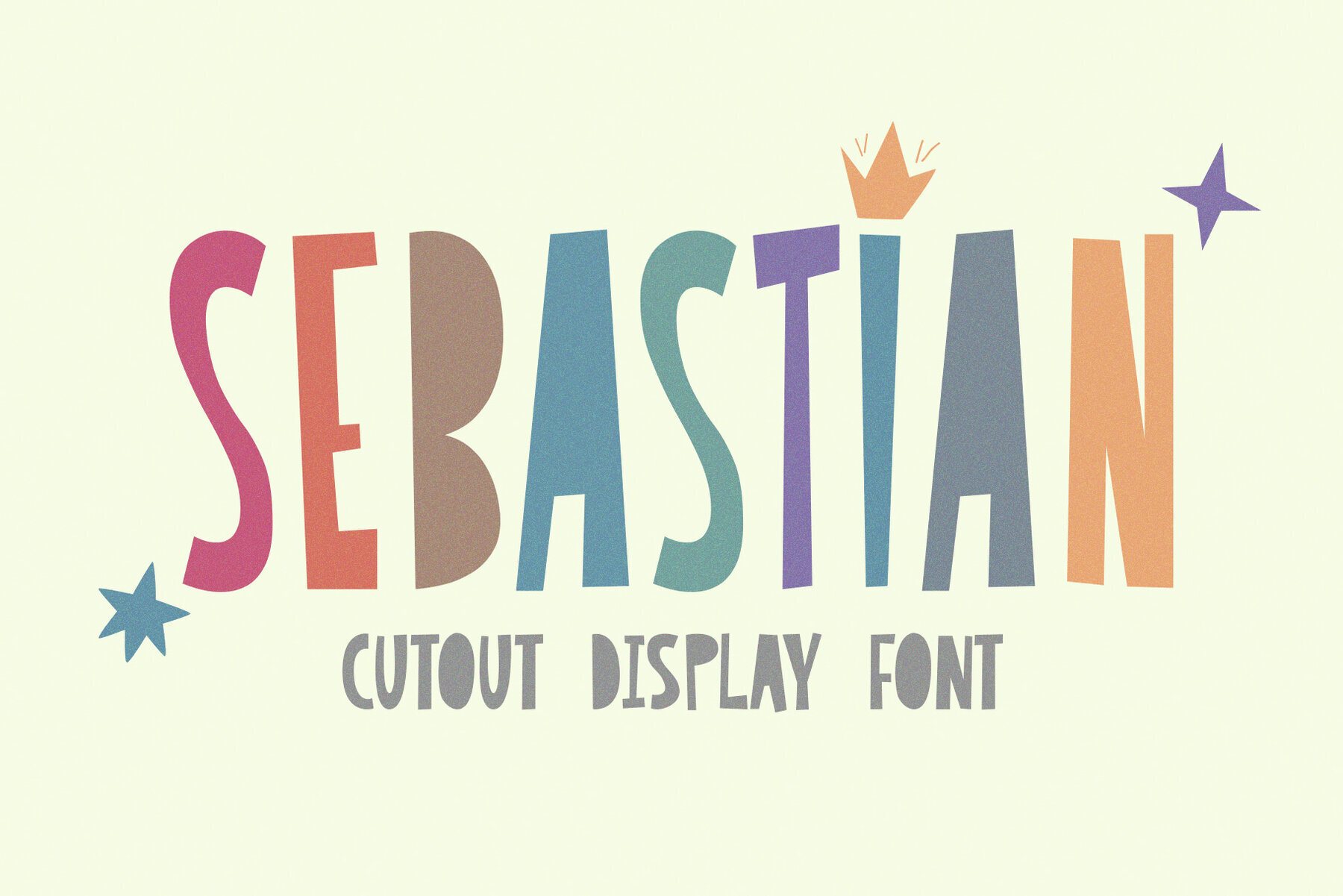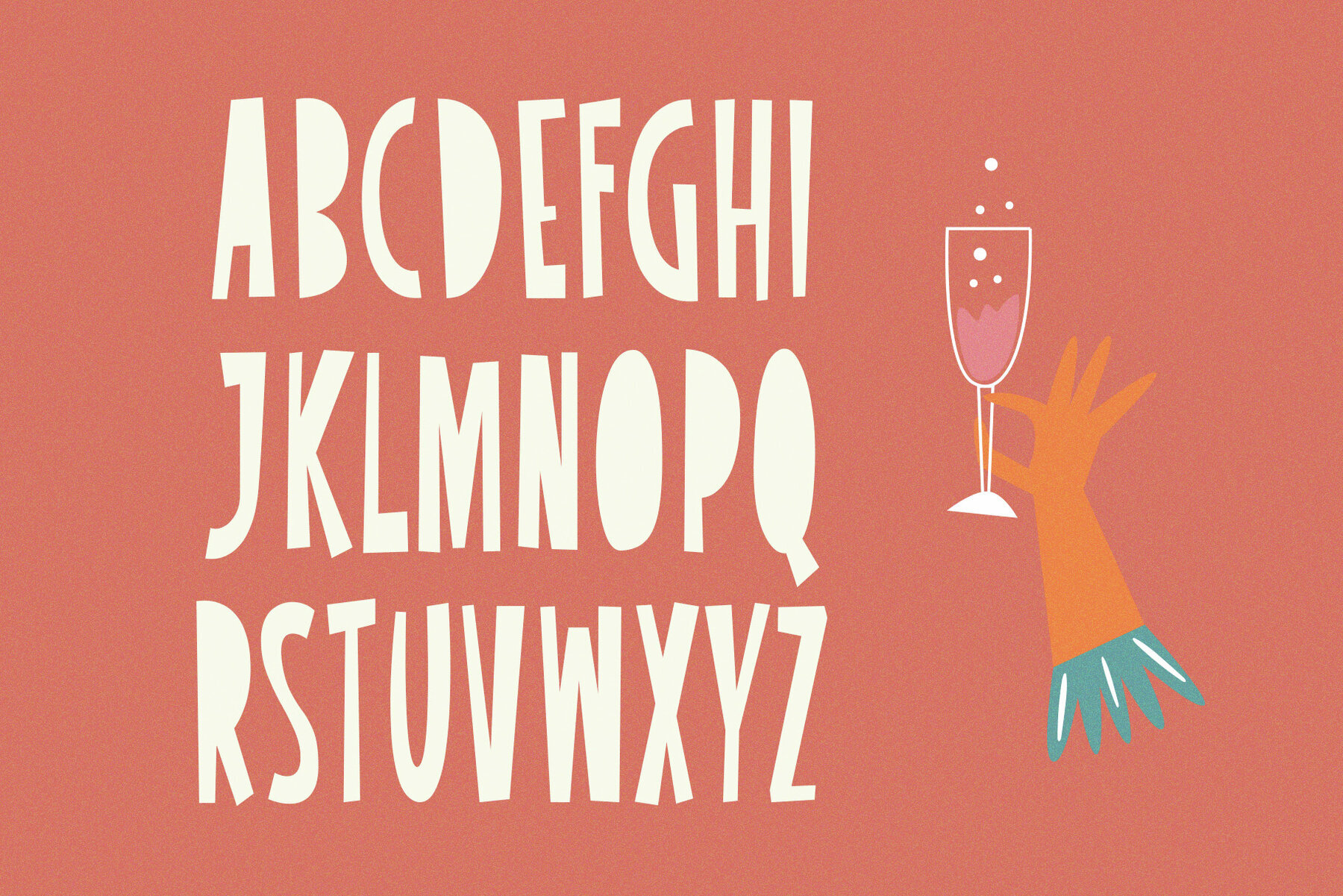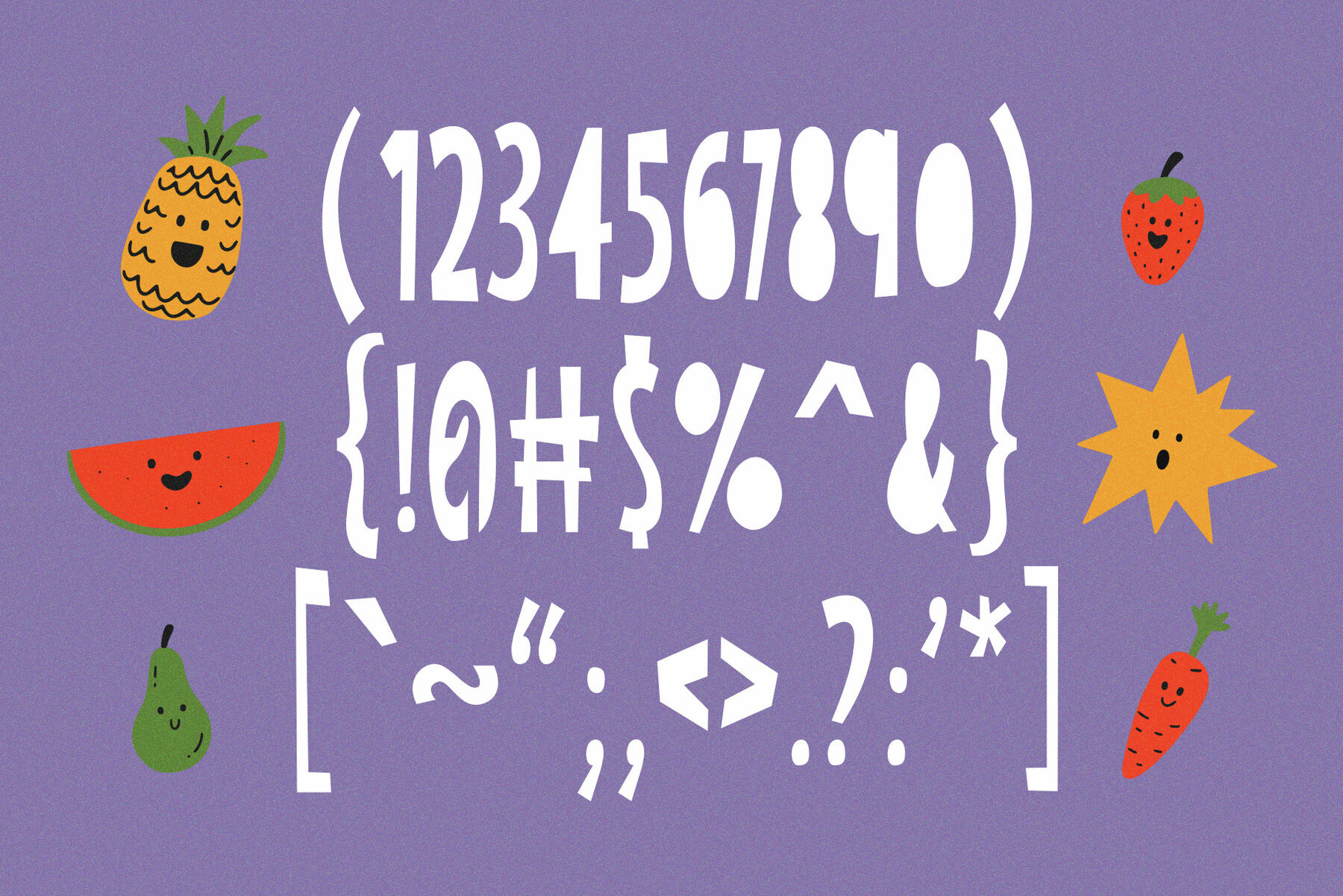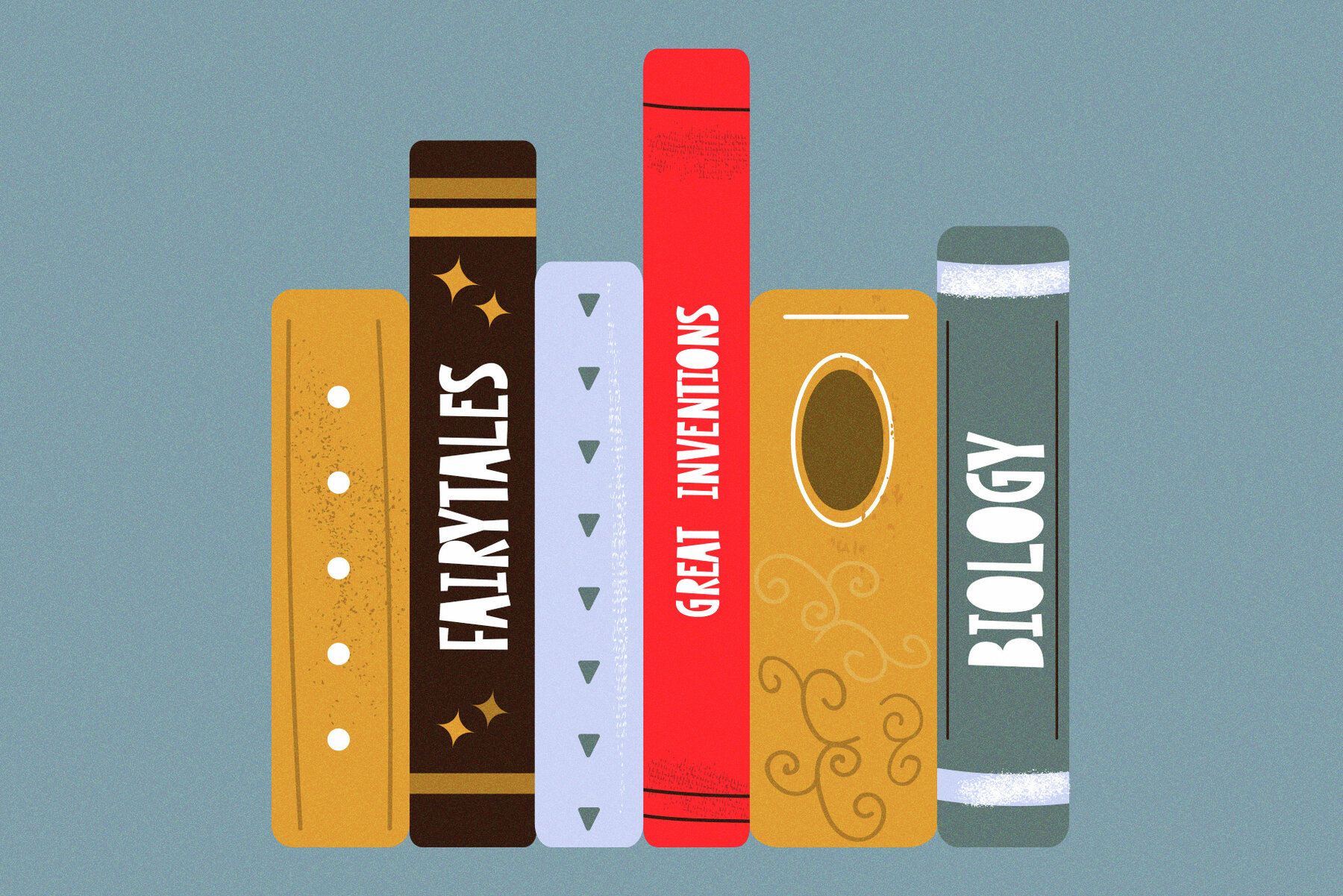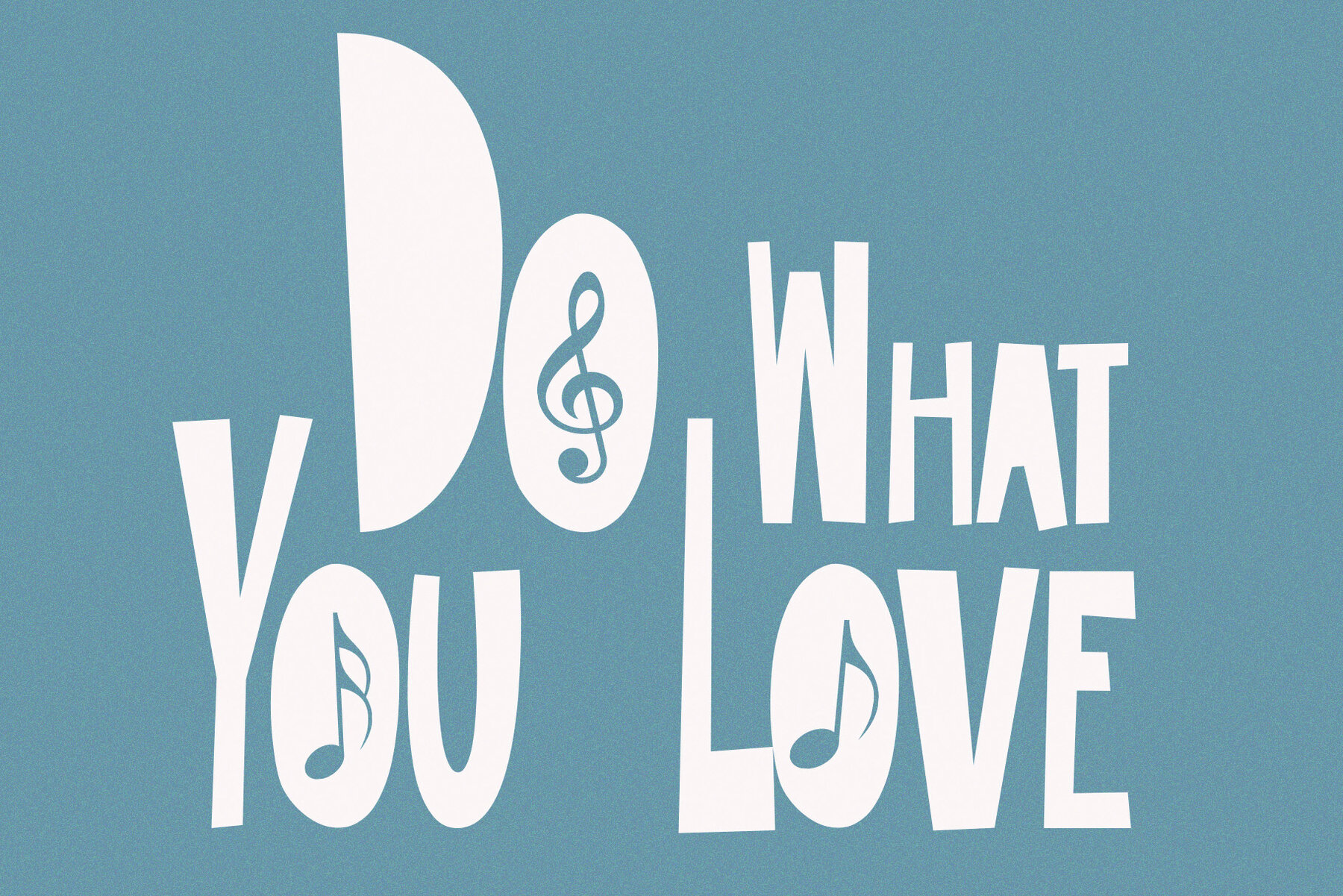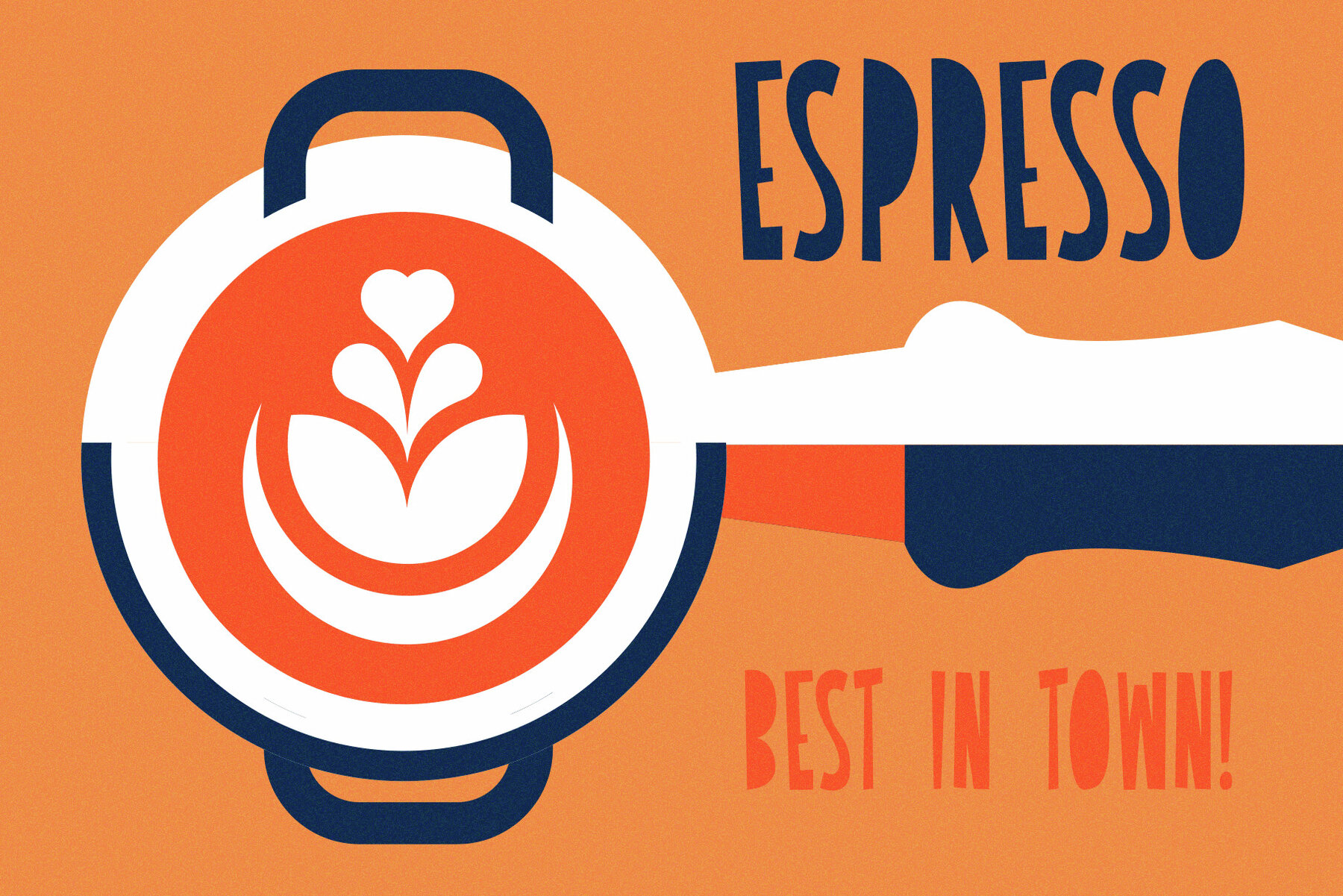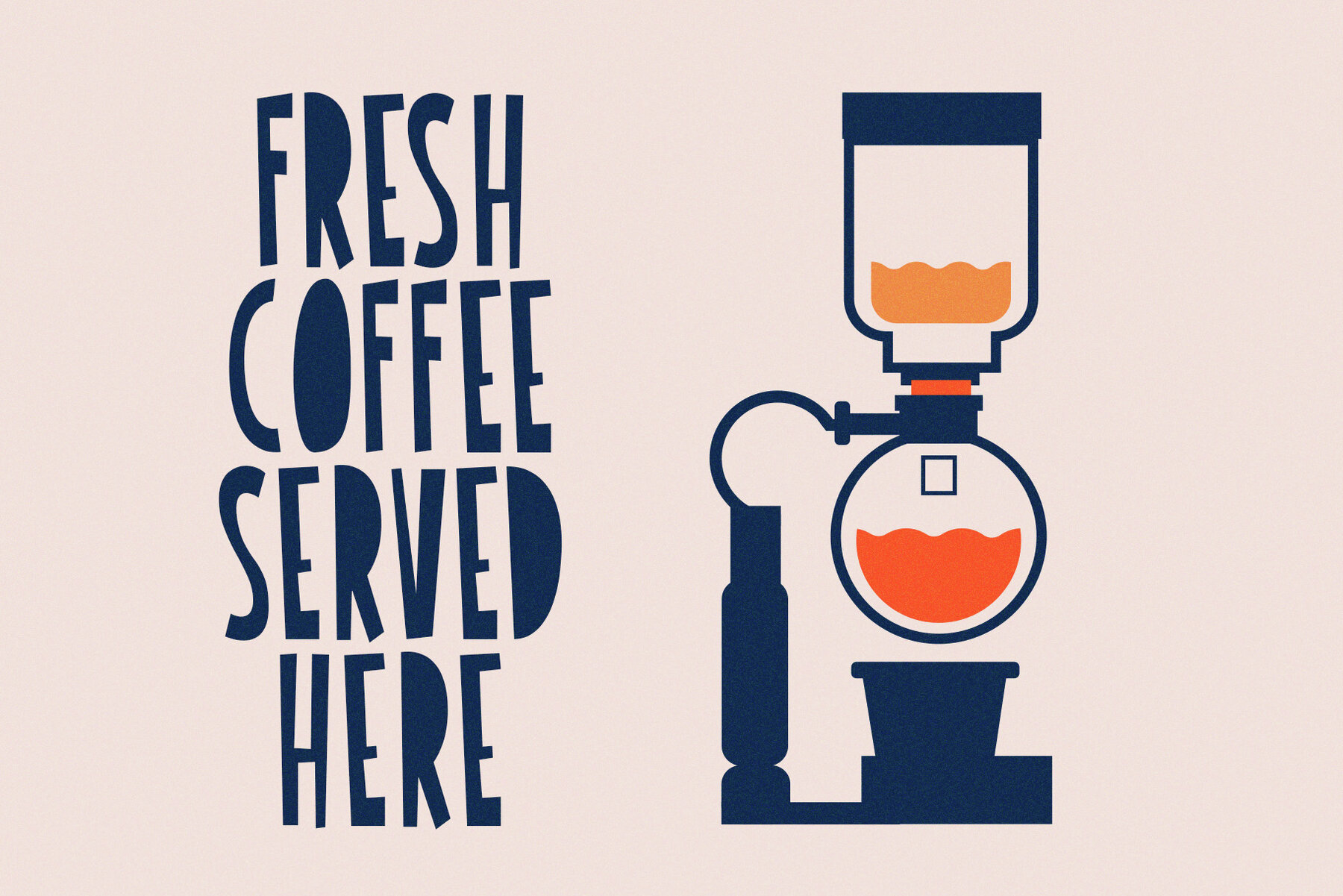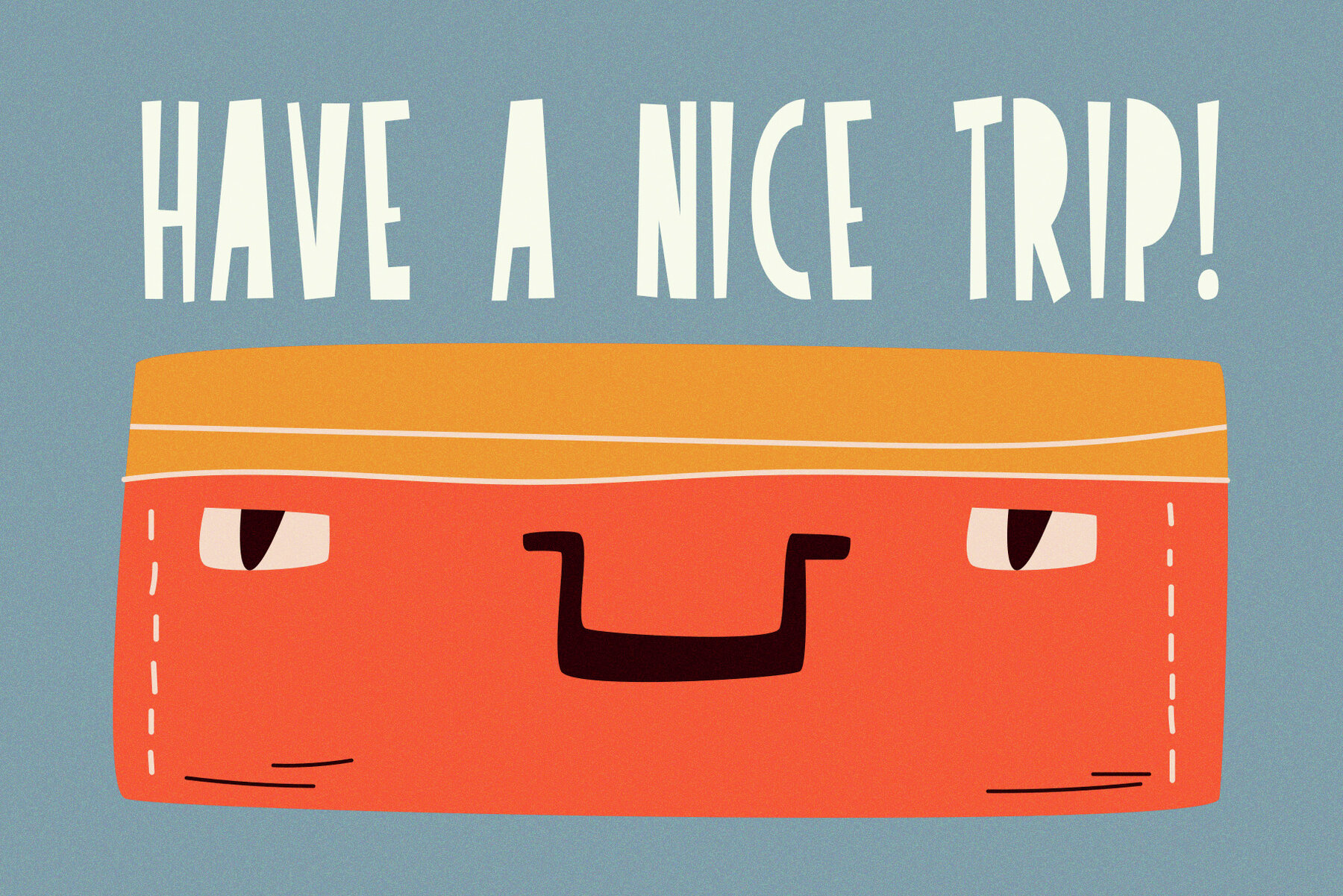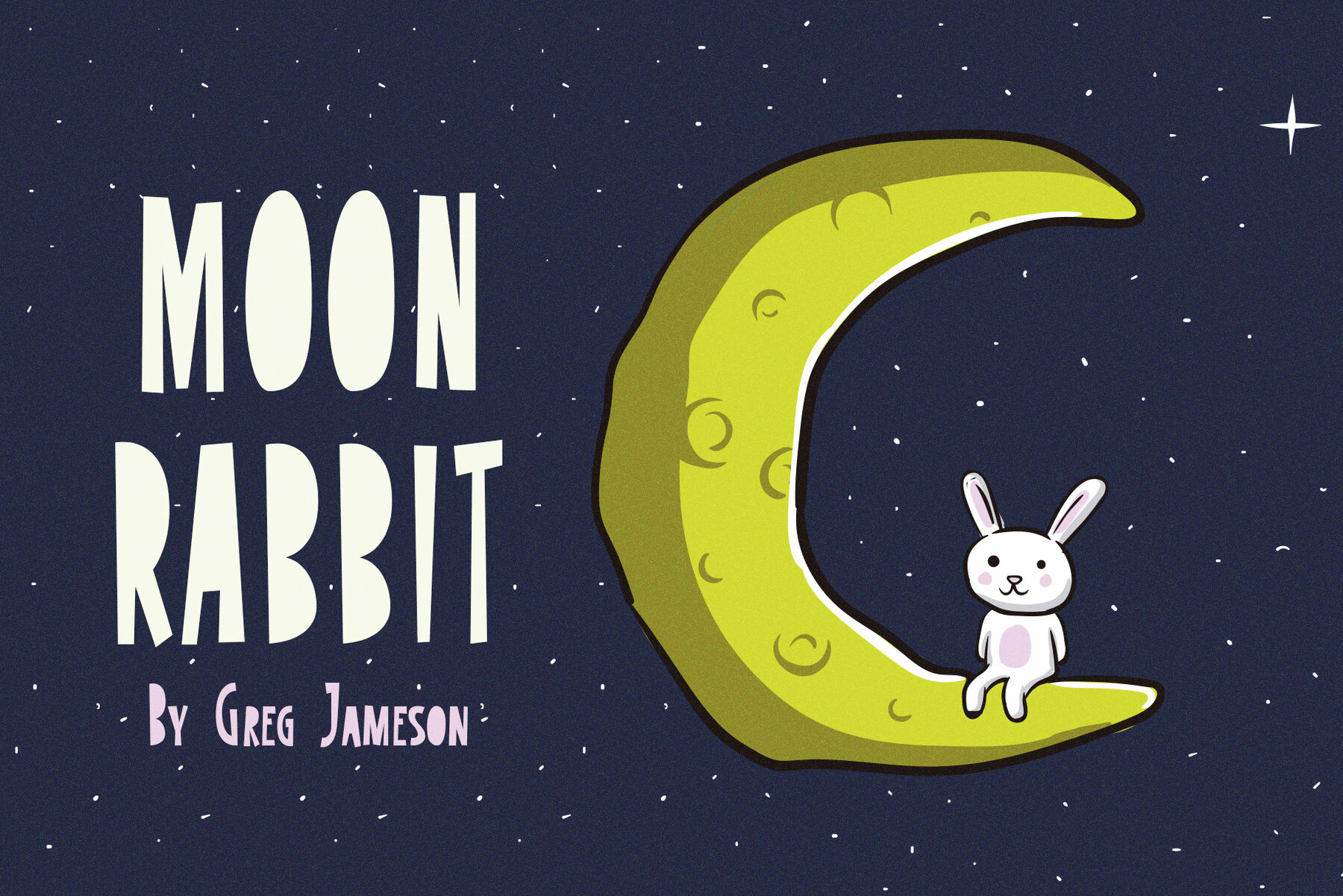
Sebastian Font
Sebastian Regular
Sebastian is a playful cutout font meticulously crafted for various creative projects. Perfect for quotes, greeting cards, social media posts, and branding, this font brings a lively and cheerful touch to your designs. Its unique cutout style adds a fun, eye-catching element, making it ideal for headers, posters, and merchandise.
With Sebastian, you can infuse any project with a dose of whimsy and charm. Whether you're designing for print or digital platforms, this versatile font will ensure your messages stand out. Embrace the creative possibilities with Sebastian for your next graphic design endeavor.